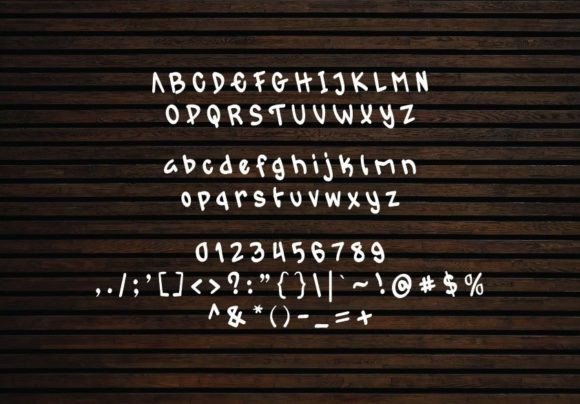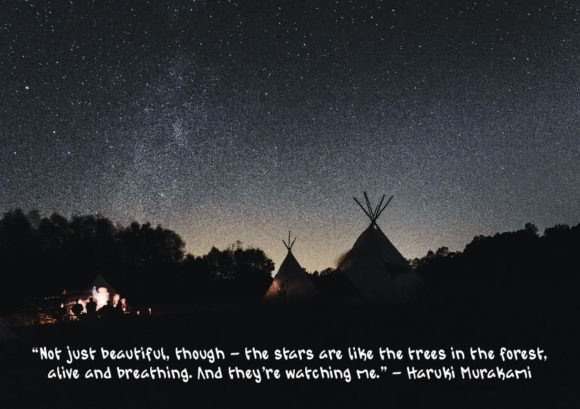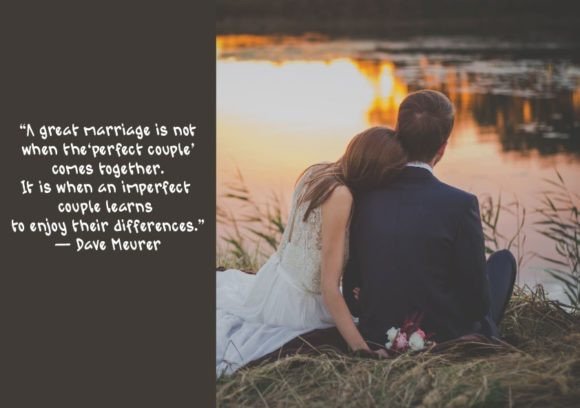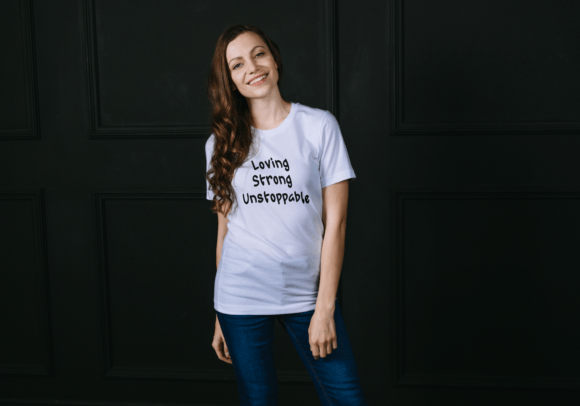
Introduction to Hanmanwe Font
Hanmanwe is both quirky and modern, with playful letters that add a sense of whimsy and fun to any design.
The letters are well-formed, with a balance of thick and thin strokes that create a sense of movement and rhythm Its informal and charming appearance makes it perfect for invitations, greeting cards, and designs that require a personal touch.
Key Features of Hanmanwe Font
Why Choose Hanmanwe Font?